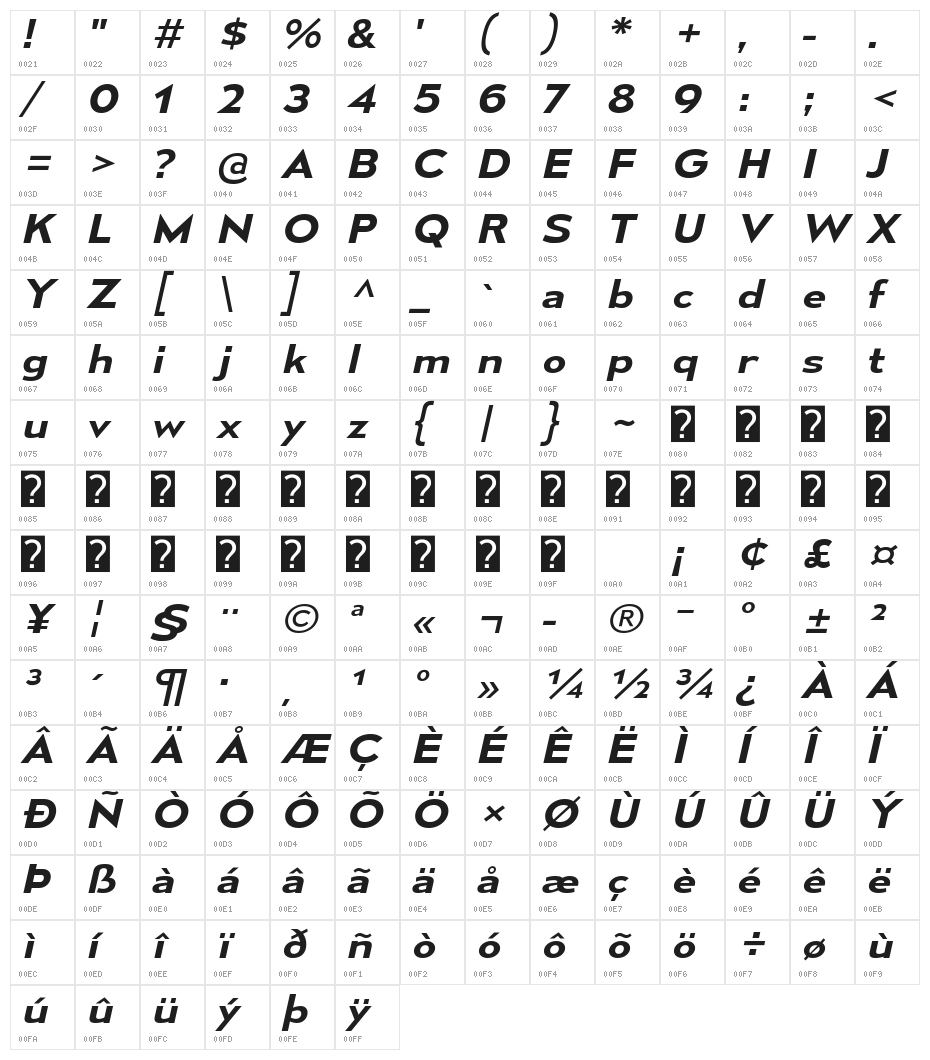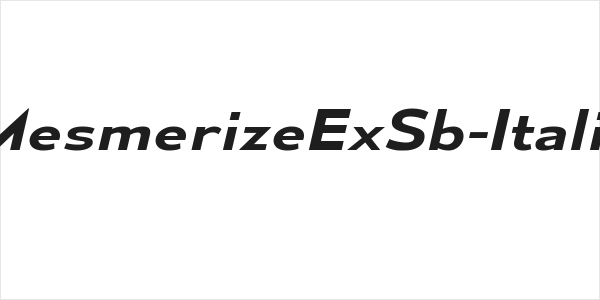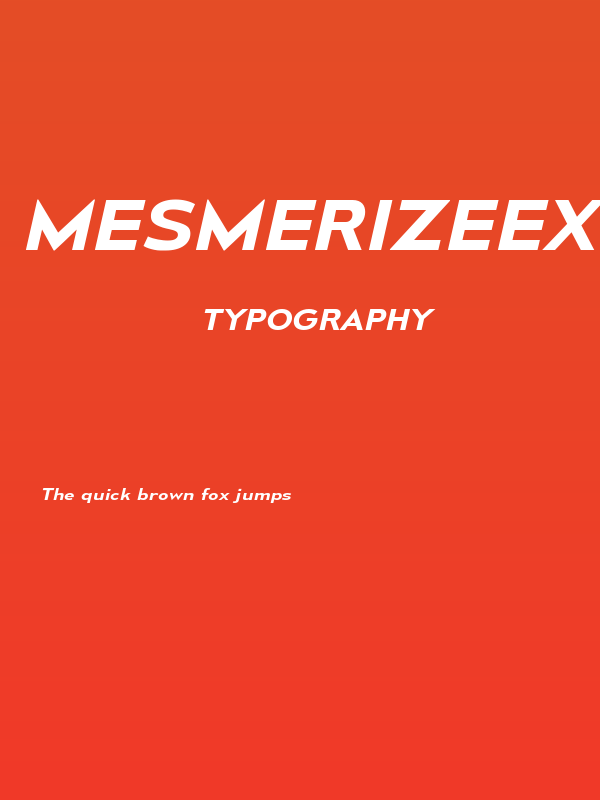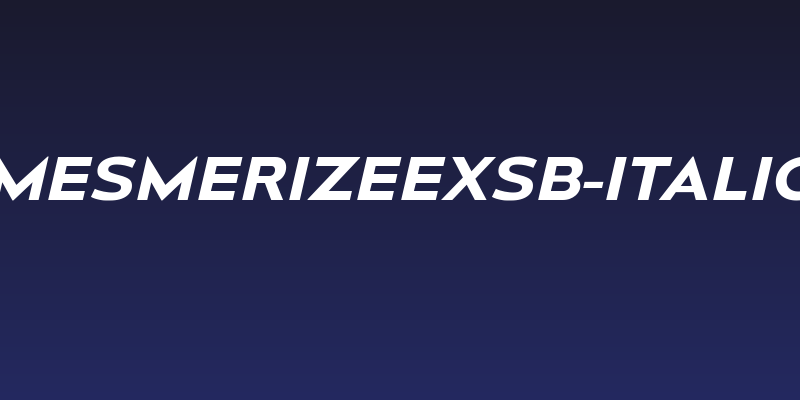
MesmerizeExSb-Italic Font
MesmerizeExSb-Italic Description
This font features a sleek and modern design with a distinct italic slant, giving it a dynamic and forward-moving appearance. The characters are well-defined with a consistent stroke width, providing a clean and professional look. The uppercase letters are bold and commanding, while the lowercase letters maintain a smooth and harmonious flow. The numerals are clear and easy to read, making them suitable for various applications. Special characters are included, offering versatility for different design needs. Overall, this font exudes a sense of elegance and sophistication, making it ideal for contemporary projects.
| Proposed Projects | Ideal for branding, advertising, digital media, and editorial design. |